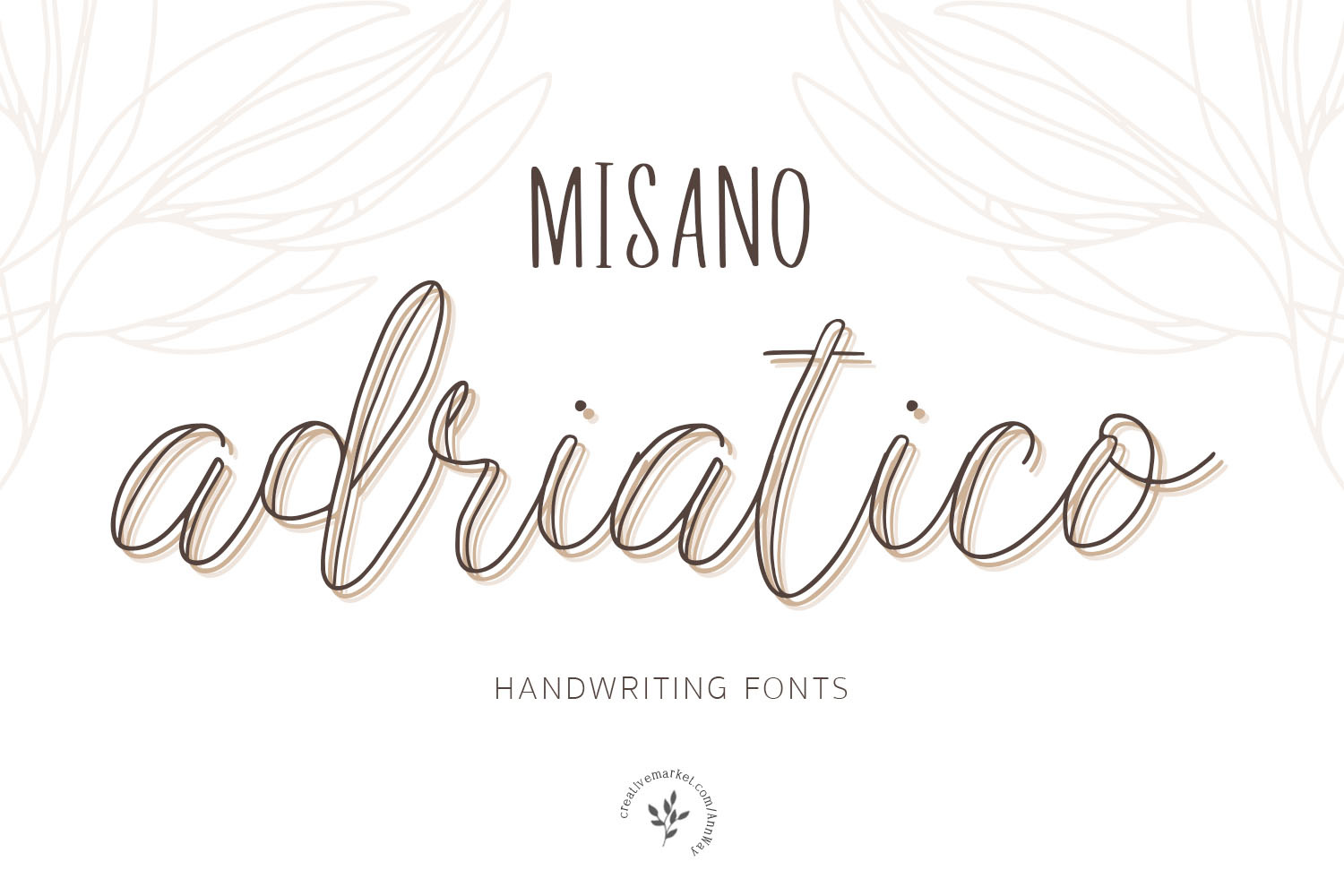
Misano Adriatico | Fonts + Bonuses
These Fonts is well suited for various design projects, such as logos, advertising, quotes, packaging design and others.